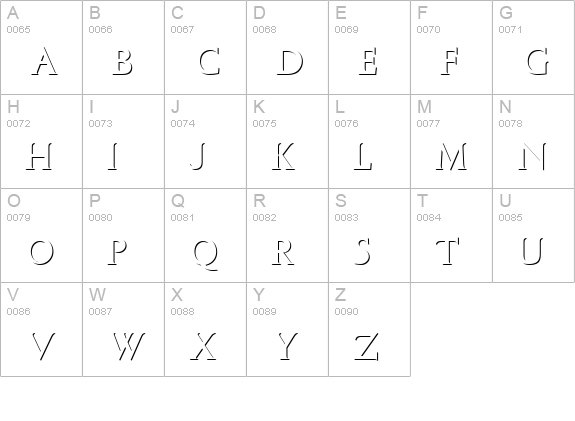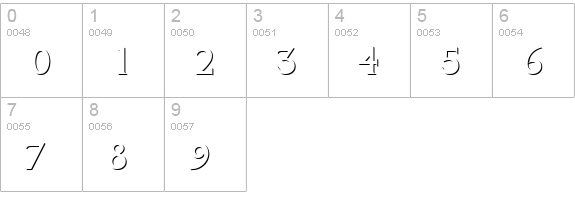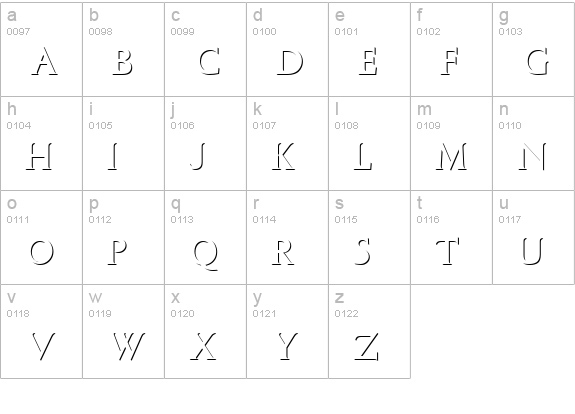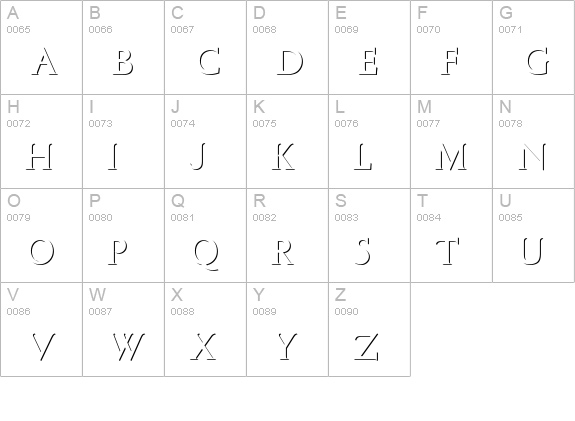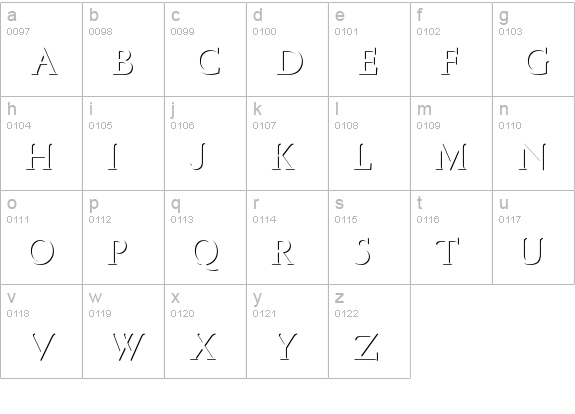
ColumnaOnlShaD Font Details
ColumnaOnlShaD font is a modern and stylish typeface that exudes elegance and sophistication. Its unique design features tall and slender letterforms with a subtle shadow effect, adding depth and dimension to any text. The sleek curves and sharp angles of this font make it perfect for creating eye-catching headlines, logos, and branding materials. What makes ColumnaOnlShaD font even more enticing is that it is available for free download at FontsMarket.com. This means that you can easily access this beautiful font and use it in your design projects without any cost. Whether you're a professional designer or just someone looking to add a touch of sophistication to your documents, ColumnaOnlShaD font is the perfect choice. Download it today and elevate your designs with this stunning typeface.